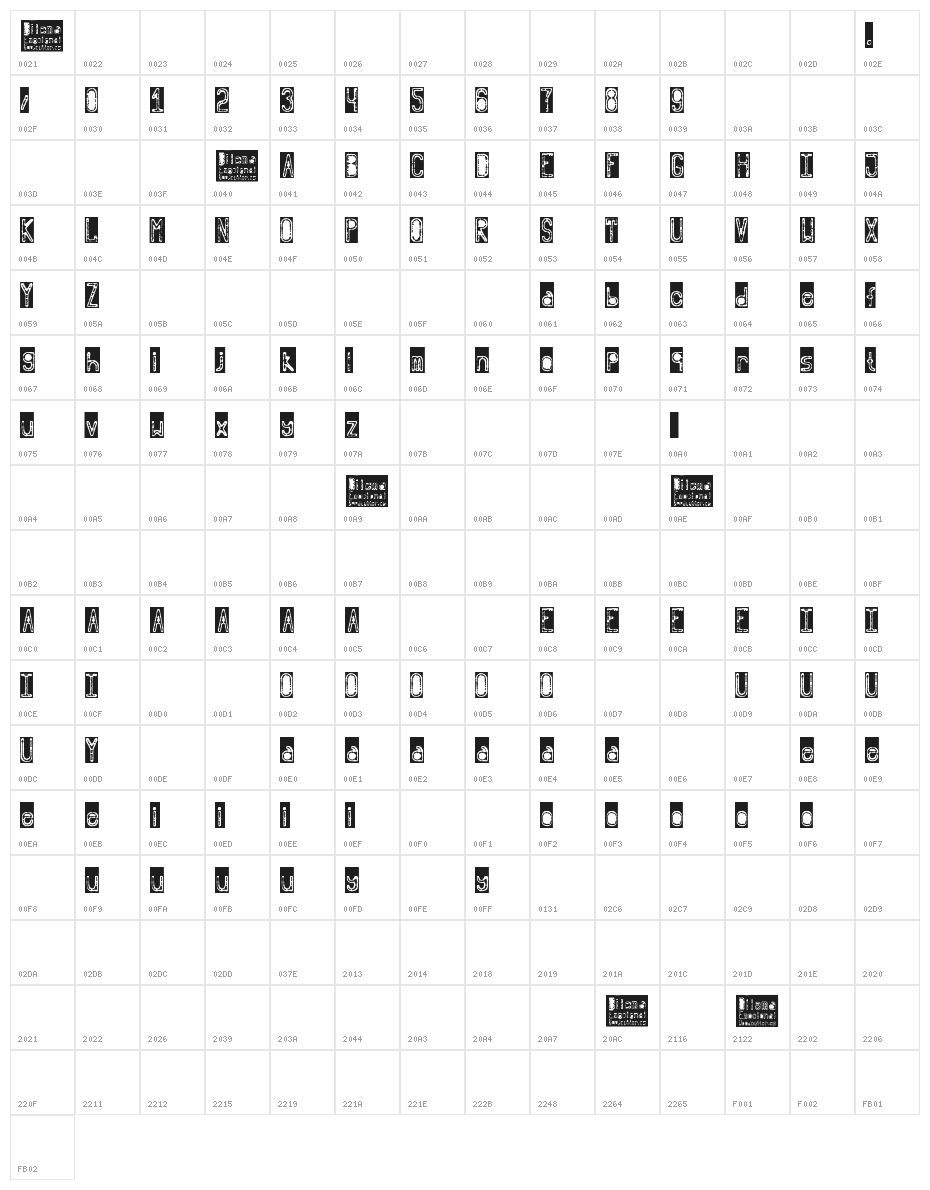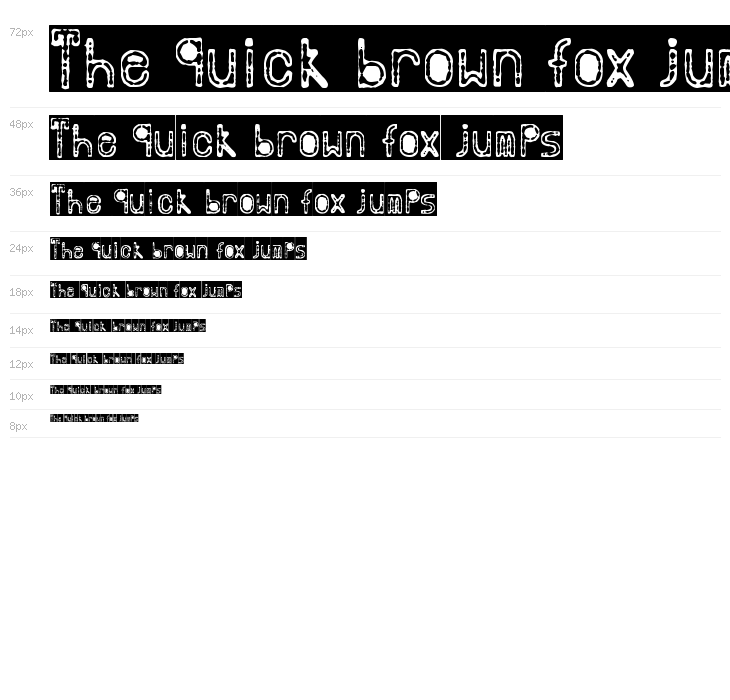
Dilema Emocional Font
Dilema Emocional Description
This font features a unique, distressed style with a playful and artistic flair. Each character is outlined with a bold, irregular stroke, giving it a hand-drawn appearance. The interior of the letters is filled with a pattern of dots and lines, adding texture and depth. The uppercase and lowercase letters maintain a consistent style, while the numbers and special characters follow the same design principles. This font's quirky and creative design makes it stand out, ideal for projects that require a touch of individuality and artistic expression.
| Proposed Projects | Ideal for artistic projects, posters, album covers, and creative branding. |